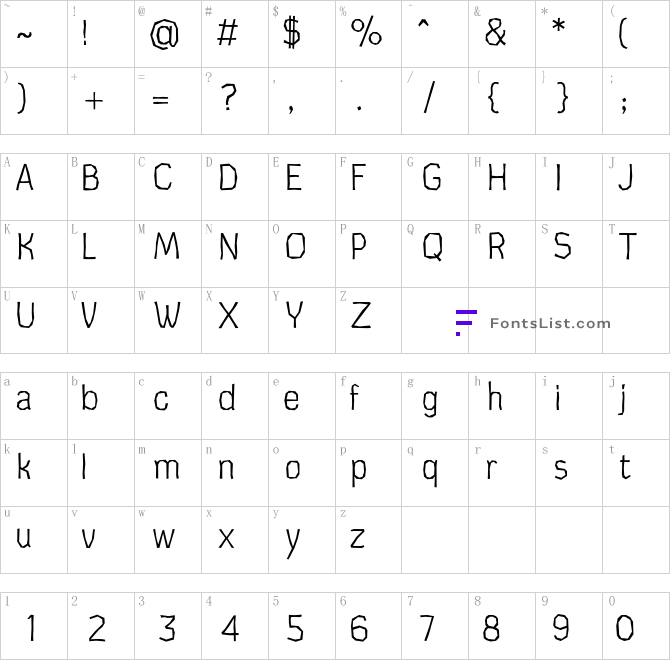
- Font Name:CardboardCat Light
CardboardCat-Light.otf is a very beautiful artistic font, CardboardCat-Light.otf is widely used in the design and printing of various books and pictures,CardboardCat-Light.otf has a strong visual impact,CardboardCat-Light.otf is a commonly used font in newspapers, magazines and books, and is used in posters, e-commerce Poster design, store design, logo design, font design and other fields.CardboardCat-Light.